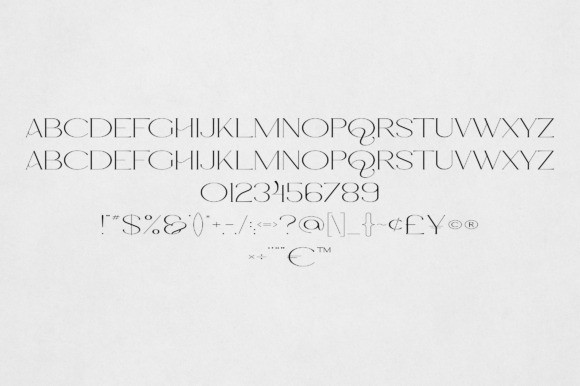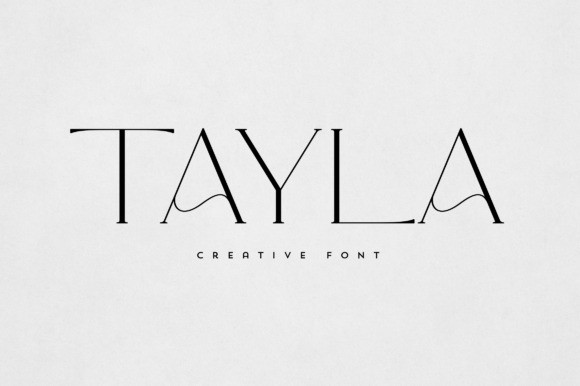
Tayla Font
Tayla Font is an elegant and versatile font that will make your typography truly unique! It will enchant every logo, branding, headline, or plain text!